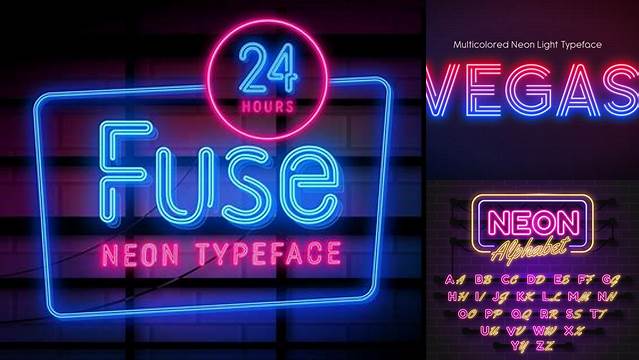
Neon Tube Fonts: Design Guide
Hey guys! Are you looking to add a vibrant, retro vibe to your designs? Neon tube fonts are the perfect way to do it. These fonts mimic the glowing, electric look of classic neon signs, instantly bringing a sense of nostalgia and cool to any project. In this article, we'll dive deep into the world of neon fonts, exploring what makes them so appealing, where you can find them, and how to use them effectively. Get ready to light up your designs!
What Are Neon Tube Fonts?
Neon tube fonts are digital typefaces designed to replicate the appearance of traditional neon signs. These signs, popular throughout the 20th century, were created by bending glass tubes into specific shapes and filling them with neon or other gases, which would then emit a bright, colorful light when electrified. Neon fonts capture this aesthetic, usually featuring rounded edges, bright colors, and a slightly imperfect, hand-crafted feel.
The appeal of neon fonts lies in their ability to evoke a sense of retro cool. They remind us of vintage diners, classic movie theaters, and bustling city streets from decades past. This nostalgic quality makes them an excellent choice for designs that aim to tap into those feelings. Furthermore, neon fonts are eye-catching and attention-grabbing. The bright, glowing effect naturally draws the viewer's eye, making them ideal for headlines, logos, and other prominent design elements.
When choosing a neon font, consider the overall style and message of your project. Some neon fonts are more faithful to the classic look, featuring simple, geometric shapes and a limited color palette. These are great for vintage-inspired designs or projects that aim for a sense of authenticity. Other neon fonts are more modern and stylized, incorporating unique design elements and a wider range of colors. These can be a good choice for projects that want to combine a retro feel with a contemporary twist. Also, think about the legibility of the font. While neon fonts are great for headlines and short bursts of text, they may not be the best choice for long paragraphs of body copy. Choose a font that is easy to read, even when displayed in a glowing, neon style.
Where to Find Neon Tube Fonts
How to Use Neon Tube Fonts Effectively
Now that you've found the perfect neon tube font, it's time to put it to use! Here are some tips for using neon fonts effectively in your designs:
- Use them sparingly: Neon fonts are visually striking, so they're best used for headlines, logos, and other short bursts of text. Avoid using them for long paragraphs of body copy, as they can be difficult to read and overwhelming.
- Choose the right colors: Traditional neon signs typically use bright, saturated colors like red, blue, green, and yellow. When using neon fonts, stick to these classic colors to achieve an authentic look. You can also experiment with gradients and color combinations to create a more modern effect.
- Add a glow effect: To enhance the neon effect, add a glow or outer glow effect to your text in your design software. This will simulate the way that real neon signs emit light and make your text stand out even more.
- Use a dark background: Neon fonts look best against dark backgrounds, as this helps the colors to pop and creates a sense of contrast. Consider using a black, gray, or deep blue background to make your neon text stand out.
- Experiment with layering: Try layering multiple neon fonts or design elements to create a more complex and visually interesting design. You can also combine neon fonts with other design elements, such as images or illustrations, to create a unique and eye-catching composition.
Neon tube fonts are a fantastic way to inject a dose of retro charm and vibrant energy into your design projects. Their unique aesthetic, reminiscent of vintage neon signs, makes them perfect for creating eye-catching headlines, logos, and graphics. By understanding what neon fonts are, where to find them, and how to use them effectively, you can harness their power to create stunning visuals that capture attention and evoke a sense of nostalgia. So go ahead, experiment with different neon fonts, play with colors and effects, and let your creativity shine. Light up your designs with the electrifying appeal of neon tube fonts! Remember that the key is to use them thoughtfully and strategically to enhance your overall design and message. Have fun creating!